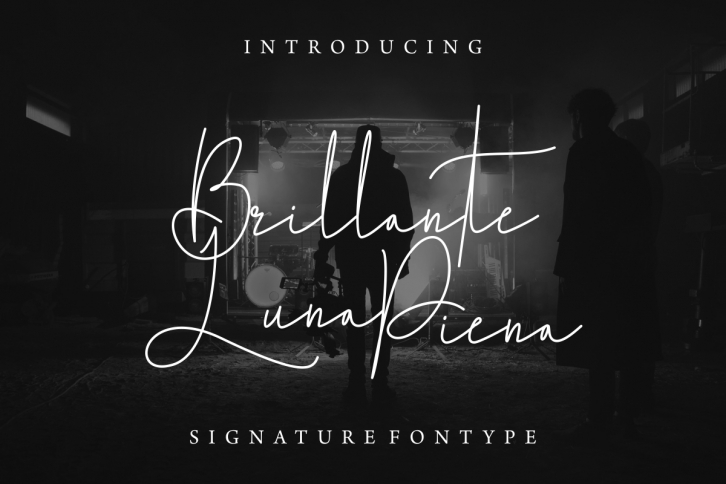
Brillante Luna Piena is a gorgeous font that was realeased on October 4, 2019. The font can be used in many style contexts and design environments. Perfect for invitations, magazines, websites, logos, and more! It was designed by EdricStudio and the file size is 5.87 MB. Thanks for checking out this font!